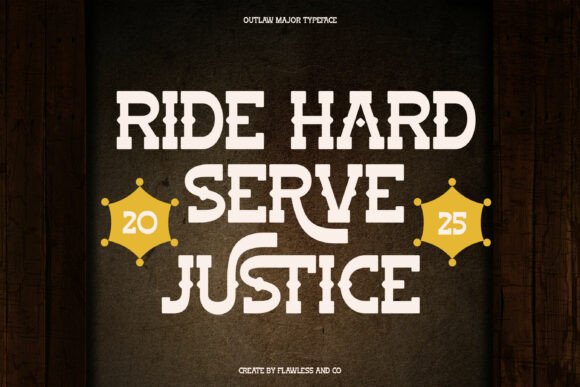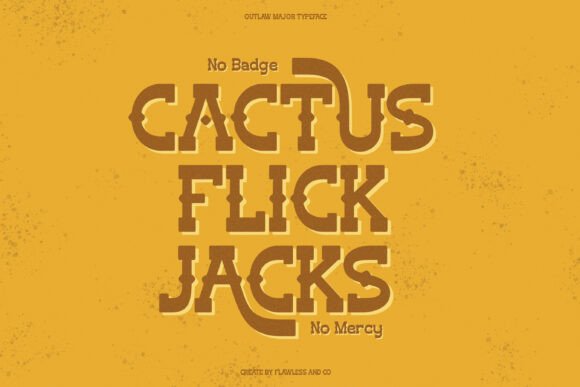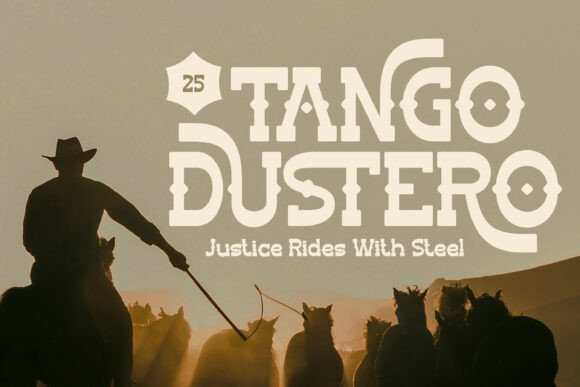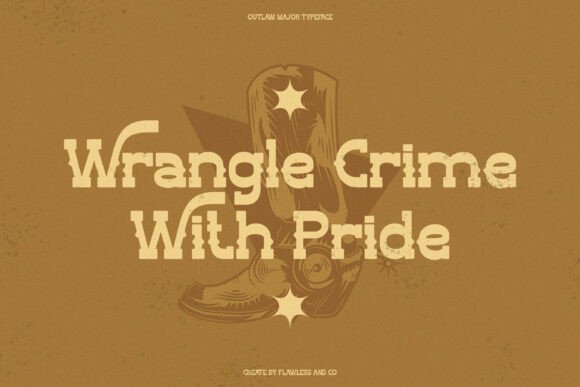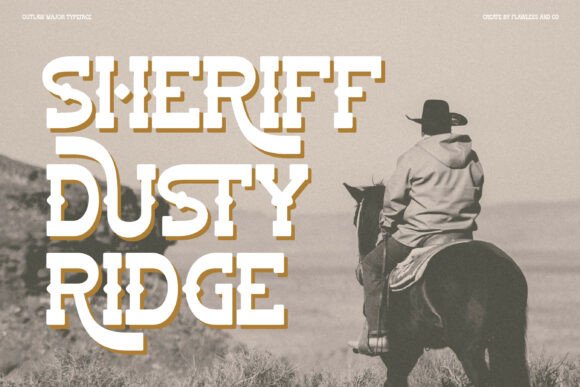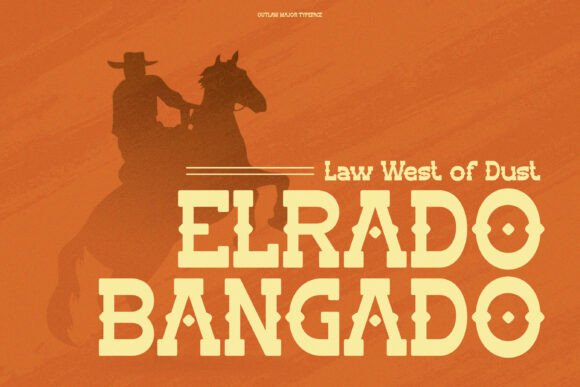
Introduction to Outlaw Major Font
Outlaw Major is a bold and rugged vintage slab serif font that captures the true spirit of the Wild West.
With its strong letterforms, unique cutout details, and authentic cowboy aesthetic, this typeface is perfect for designs that need grit, character, and a touch of frontier charm Whether youโre creating posters, logos, apparel, signage, or branding, Outlaw Major delivers a commanding presence that stands out with style.
Key Features of Outlaw Major Font
Why Choose Outlaw Major Font?